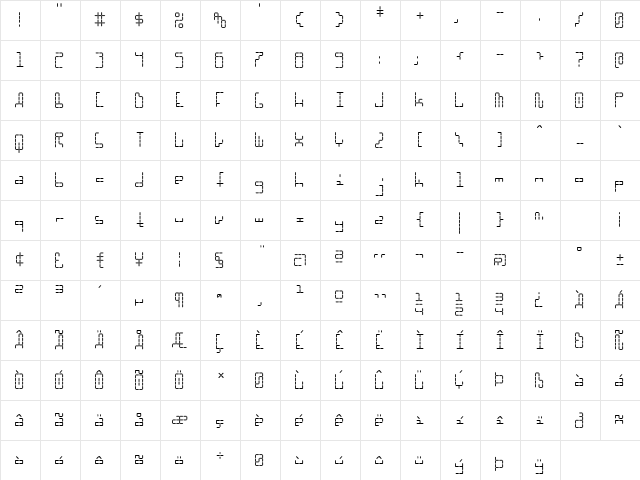
HybridLCD AOE Regular Font Preview
HybridLCD AOE Regular
HybridLCD AOE Regular Font Details
Design Context for HybridLCD AOE Typeface
HybridLCD AOE is a composed and adaptable typeface that performs quietly and consistently across a wide range of design contexts.
Pro Tip: Use HybridLCD AOE in both headline and body roles to test its range before committing to a single application.